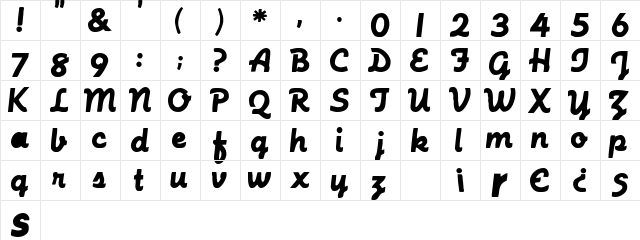
CastlerockScriptSSK Regular
Design Context for CastlerockScriptSSK Typeface
CastlerockScriptSSK flows with the natural rhythm of handwritten lettering, making it ideal for designs that call for warmth and personal expression.
Font Pairing: Combine CastlerockScriptSSK with a simple geometric sans for maximum contrast — the tension between flowing curves and clean structure is a classic typographic pairing.
Pro Tip: Pair CastlerockScriptSSK with a clean sans-serif for supporting text. The contrast between fluid script and geometric structure creates an elegant typographic hierarchy.